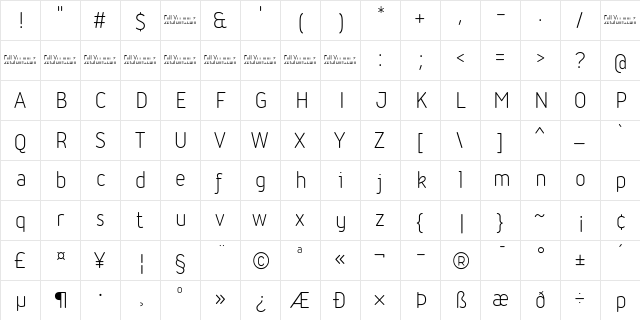
Iconic Trial Light
| Foundry | Zetafonts |
| Designer | Francesco Canovaro |
Design Context for Iconic Trial Typeface
Iconic Trial offers clean, dependable letterforms without strong stylistic allegiance, making it a practical choice for designers who need flexibility. Its slender proportions lend an understated elegance to any composition.